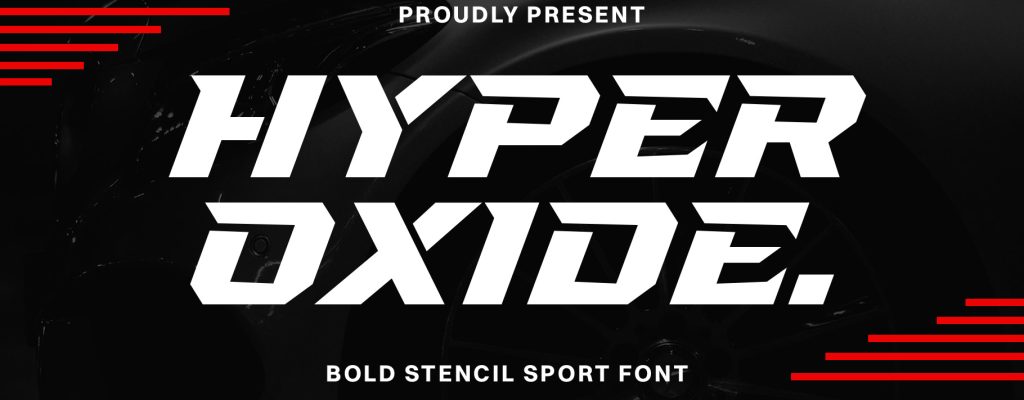
Hyper Oxide – Bold Stencil Sport Font
Introducing Hyper Oxide – Bold Stencil Sport Font, Unleash the power of bold design with Hyper Oxide, a cutting-edge typeface meticulously crafted to embody the spirit of strength and modernity. This bold stencil font is designed to transform your creative projects, infusing them with a dynamic, sporty aesthetic.